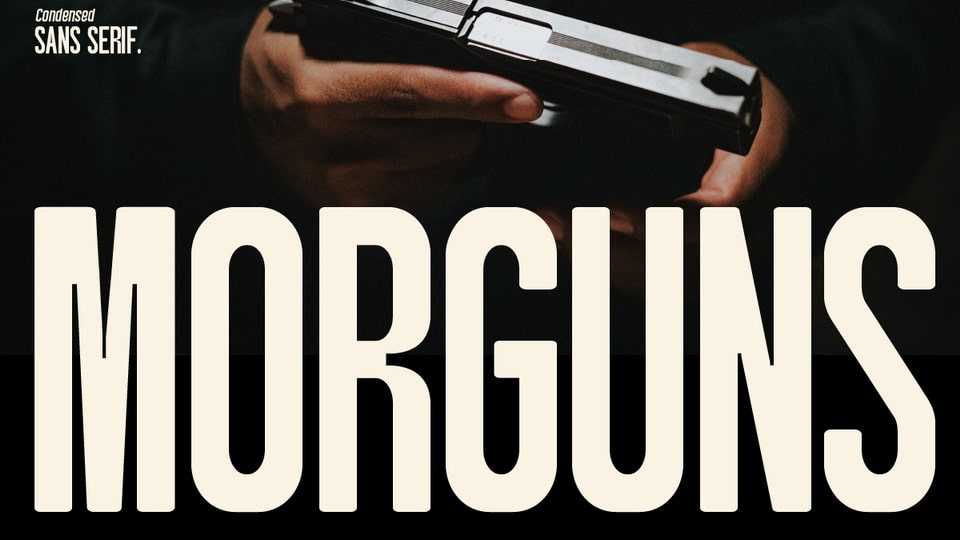
Download Morguns font, a bold typeface that has a different character from other bold fonts. Morguns has a strong but soft character, with an elegant and fresh theme.